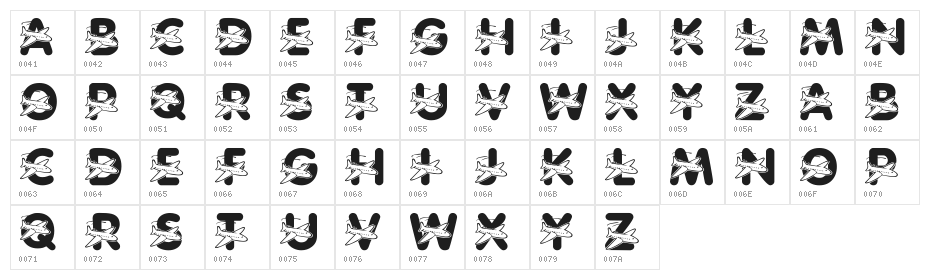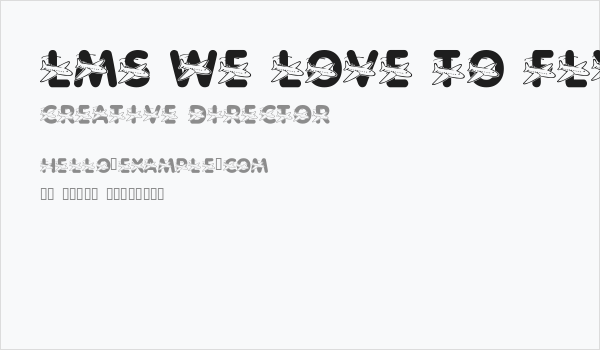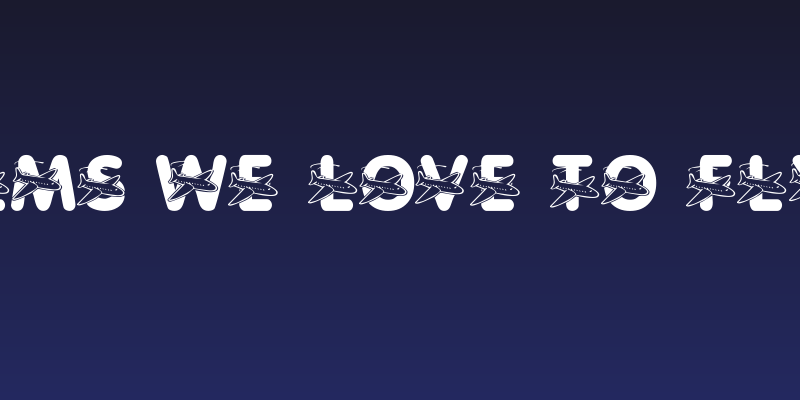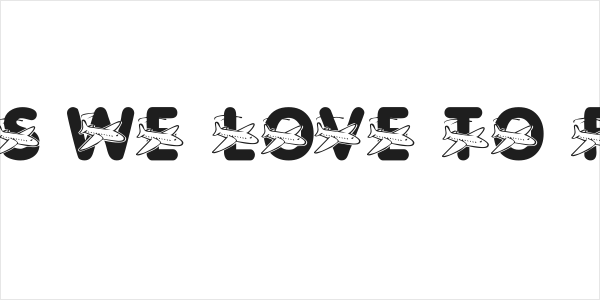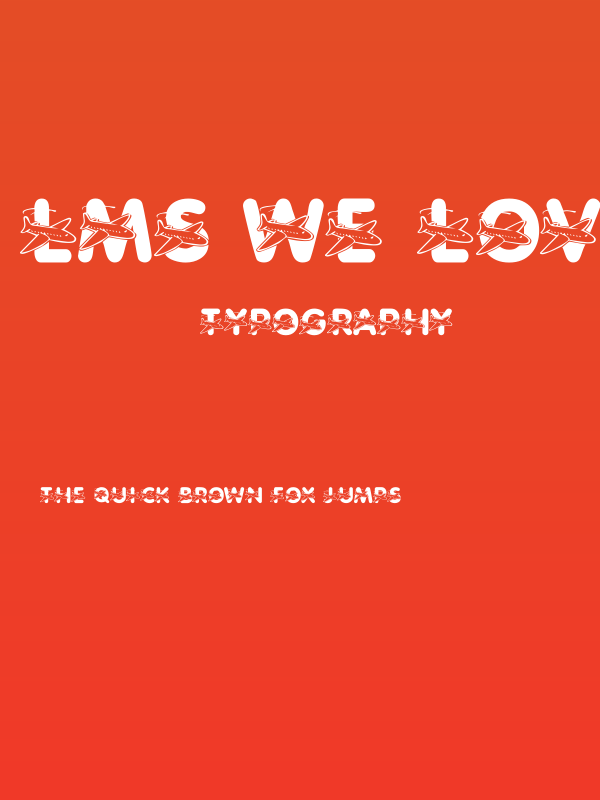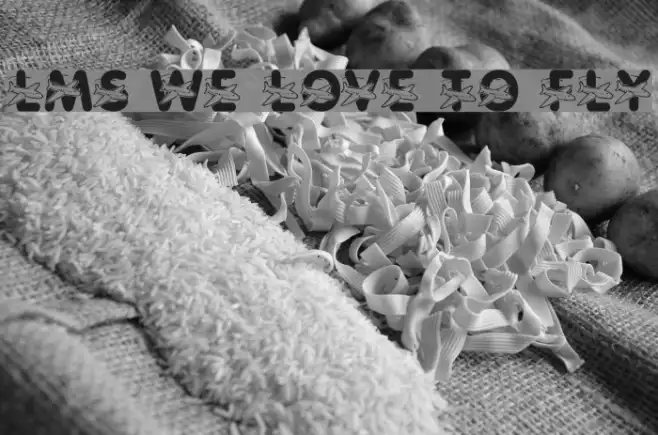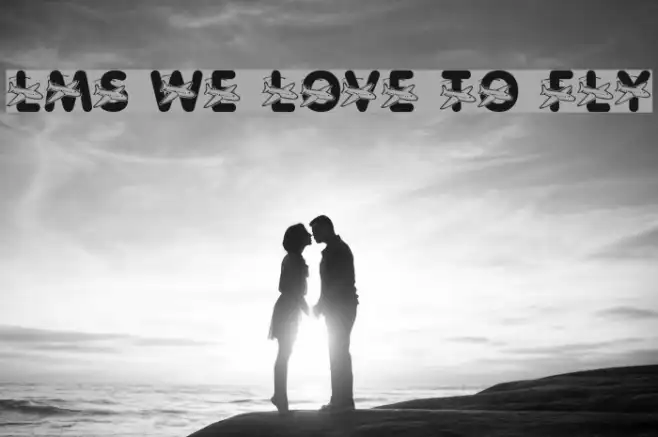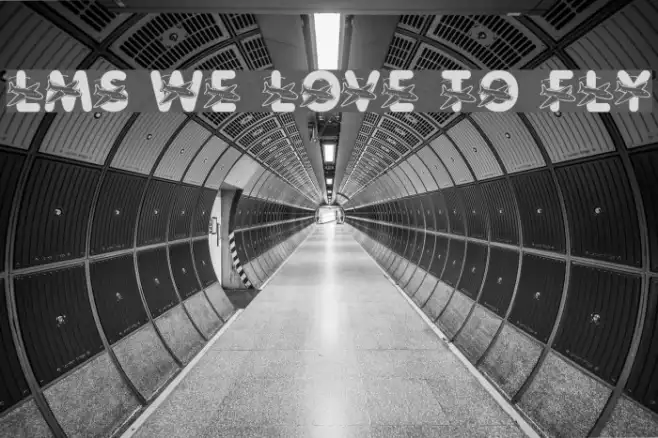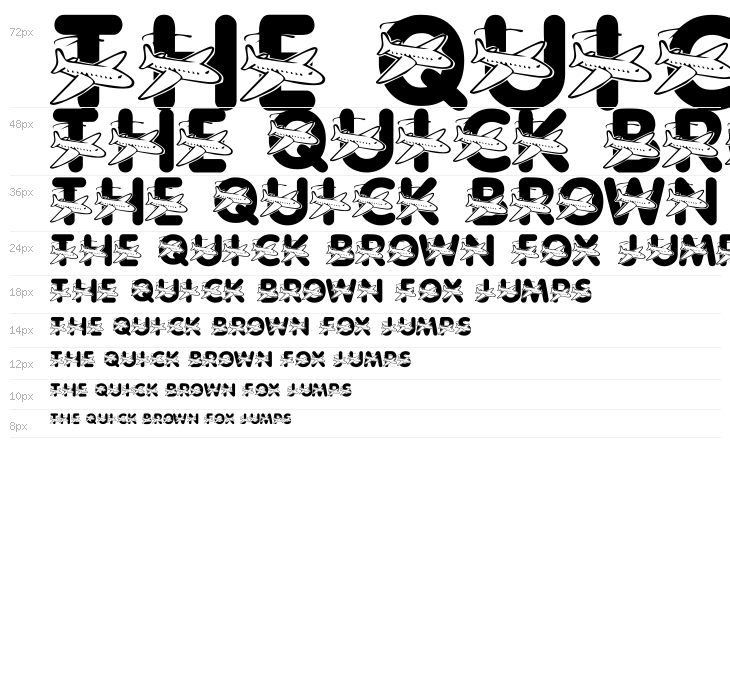
LMS We Love To Fly Font
LMS We Love To Fly Description
This playful and dynamic font features bold, uppercase letters with a unique twist—each character is intersected by a stylized airplane graphic, adding a sense of motion and adventure. The letters are thick and rounded, providing a strong visual impact while maintaining a friendly and approachable feel. The integration of the airplane motif makes it ideal for travel-related themes, evoking a sense of wanderlust and excitement. The font's boldness ensures readability, while the decorative element adds a layer of creativity and fun.
| Proposed Projects | Ideal for travel agency branding, aviation-themed posters, children's books about flying, or any project needing a fun, adventurous touch. |